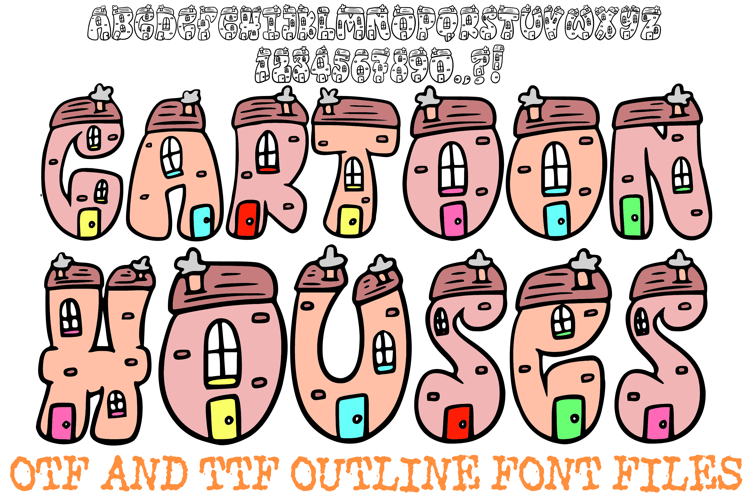
The Cartoon Houses Font is a whimsical, architectural display typeface that transforms every letter into a cozy, hand-drawn dwelling. Featuring charming rooftops with smoking chimneys, tiny windows, and vibrant front doors, this font is the ultimate storytelling tool for children’s book titles, neighborhood event posters, and creative classroom decorations.
Each character is meticulously crafted with a "cottage-core" aesthetic, blending blocky, sturdy silhouettes with delicate illustrative details that make every word feel like a small, friendly village. Whether you are designing for a nursery, creating playful logos, or working on personalized home-decor crafts, the Cartoon Houses Font delivers a warm, artisan-crafted feel that truly feels like home.
Why Your Designs Will Stand Out
Clean Hand-Drawn Outlines: The bold, slightly irregular black outlines provide an organic, artisan look that is perfect for coloring projects, sublimation, and vinyl cutting.
Playful & Approachable: The combination of soft, rounded letterforms and whimsical details makes this font ideal for any project targeting families, children, or home-related branding.